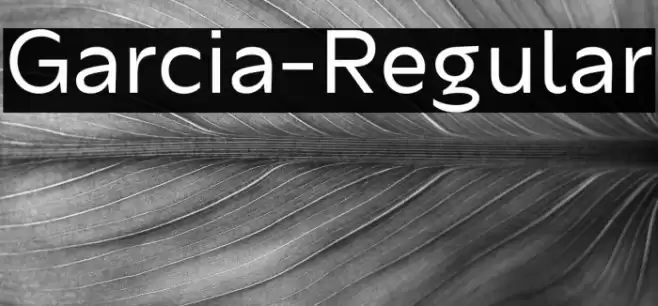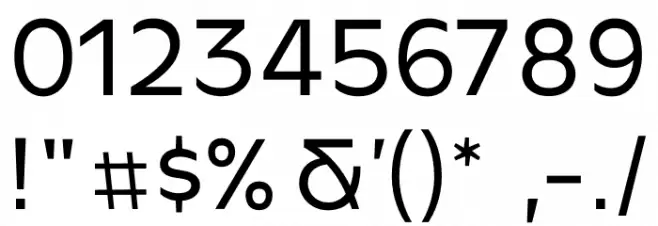
Garcia-Regular Font
Garcia-Regular Description
This font features a clean and modern sans-serif design, characterized by its geometric shapes and balanced proportions. The uppercase letters are bold and assertive, while the lowercase letters maintain a friendly and approachable appearance. The numerals are clear and easy to read, making them suitable for various applications. The special characters are well-integrated, ensuring consistency across all glyphs. Its simplicity and clarity make it versatile for both digital and print media.
A modern, geometric sans-serif font with clean lines and balanced proportions from Sans Serif fonts.
- Proposed Projects: Ideal for branding, web design, advertising, and editorial projects where clarity and modernity are essential.